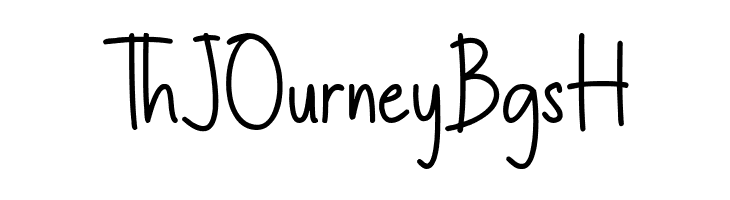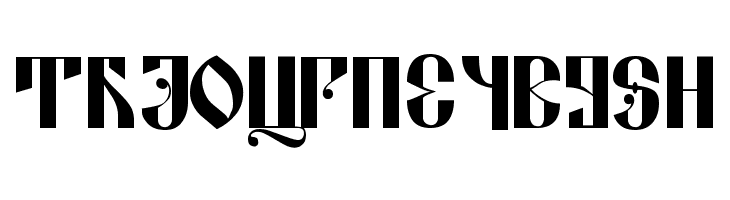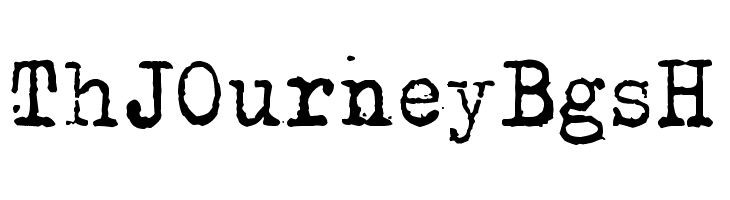
• Kirjainkone
A distressed, vintage typewriter-style font with a rugged, handcrafted appearance.
• Kirjainkone
A vintage, typewriter-style font with textured, uneven edges.
• Kiss & Tell Font By Aldo Dattoli
( Aldo Dattoli )
A modern, geometric font with a unique cut-out style and sleek design.
• Kittenblue
• KLettresOmbrees
A bold, shadowed font with a three-dimensional, decorative style.
• KNIJPER
( CROLrene )
A jagged, edgy font with chaotic, overlapping strokes and a rebellious aesthetic.
• Kodaly
• KreepTown
• Kremlin Alexander Bold
A bold, decorative font with high contrast and intricate flourishes.
• Kremlin Alexander Bold